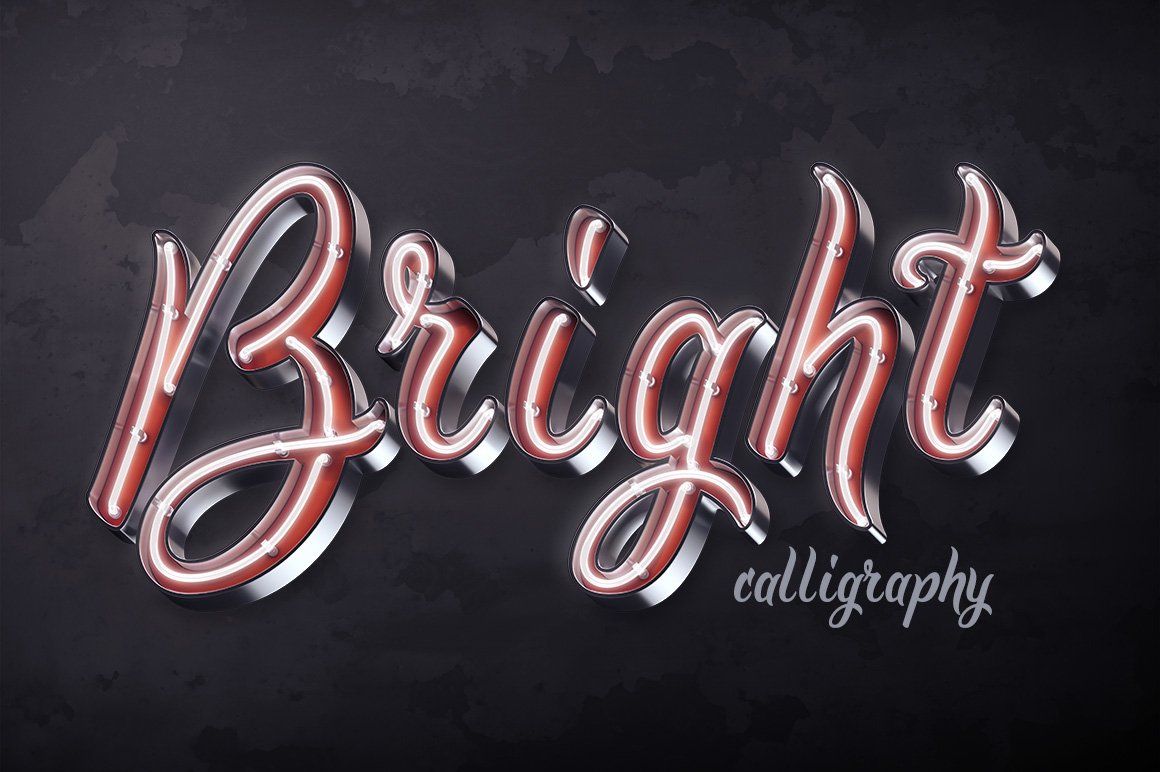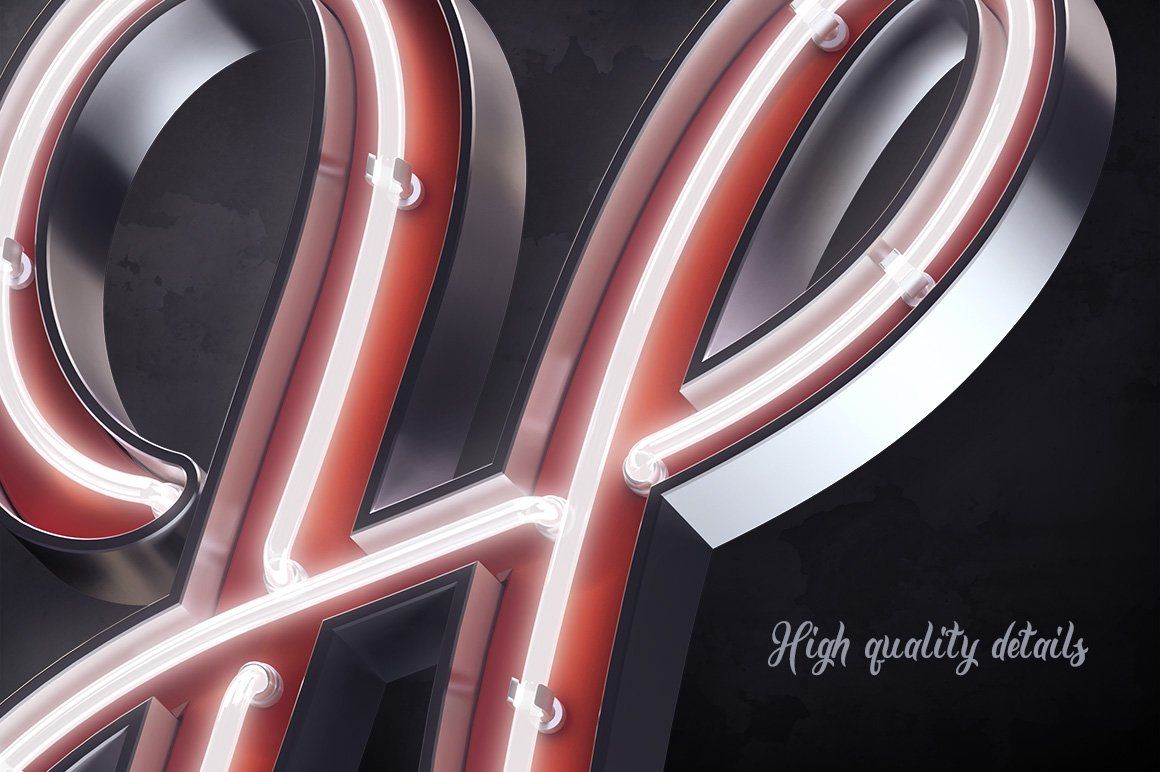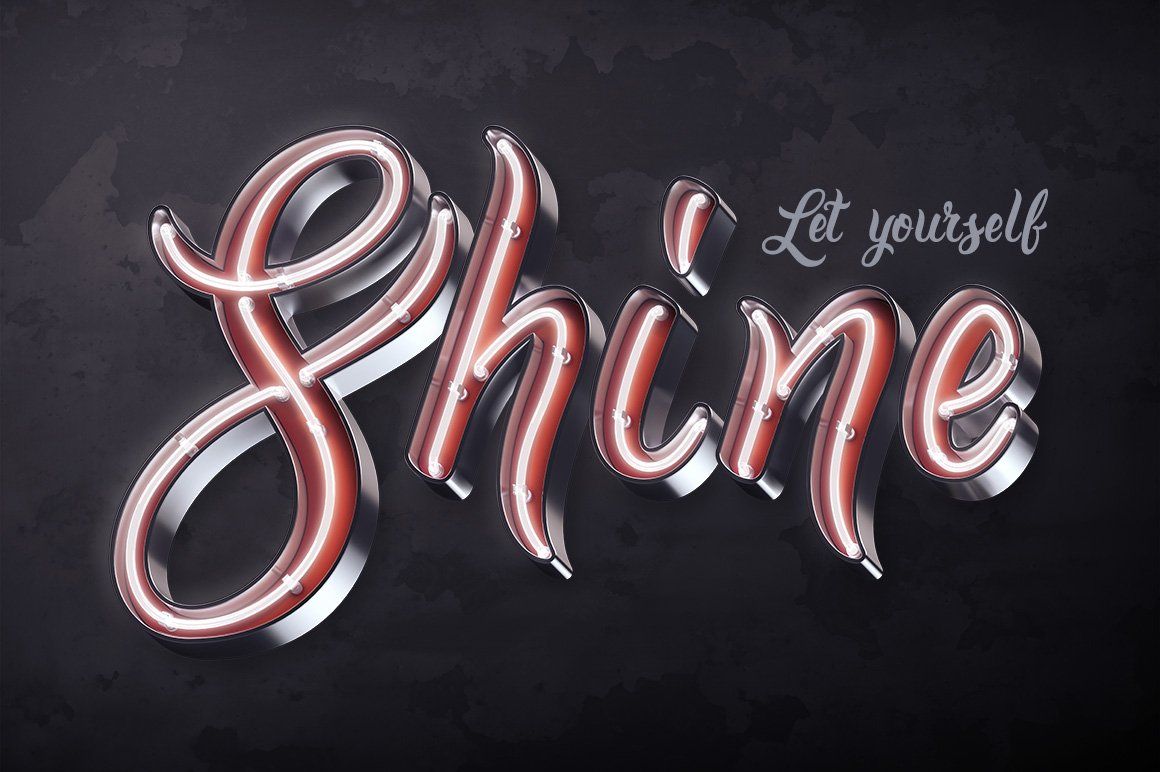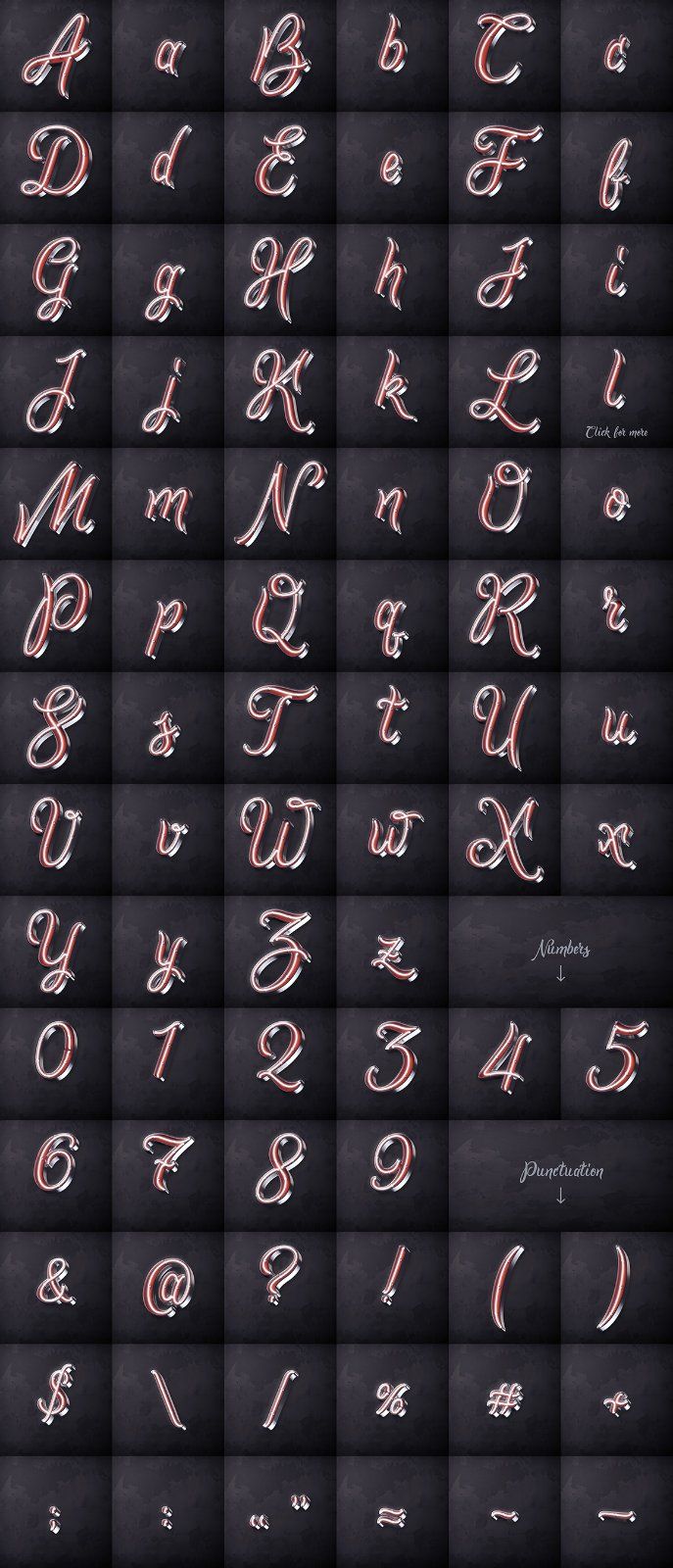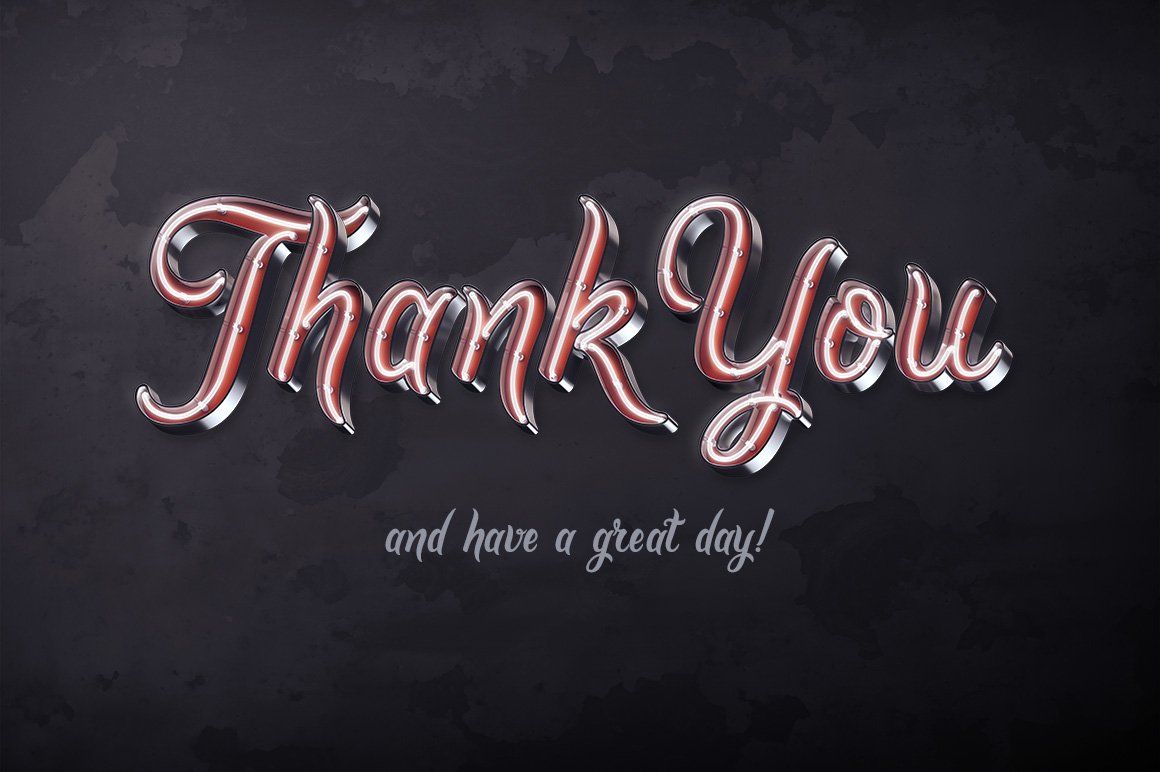
Hi! Introducing a high quality PSD font set named Bright calligraphy. It's a 3d rendered letters, it consists of 81 layered PSD files with transparent background (all characters you can see on the 4th screenshot). Each file has resolution 4000x4000 pixels. Also you will get all this files in PNG format with lower resolution.
Please note that it's not an installable TTF or OTF font, it's just a set of raster PSD files, that can be manually composed in words. But this font is based on my "Golden Brush" font. So it's quite similar, and it's included as a bonus in OTF & TTF formats. Dark textured background is also included as a bonus.